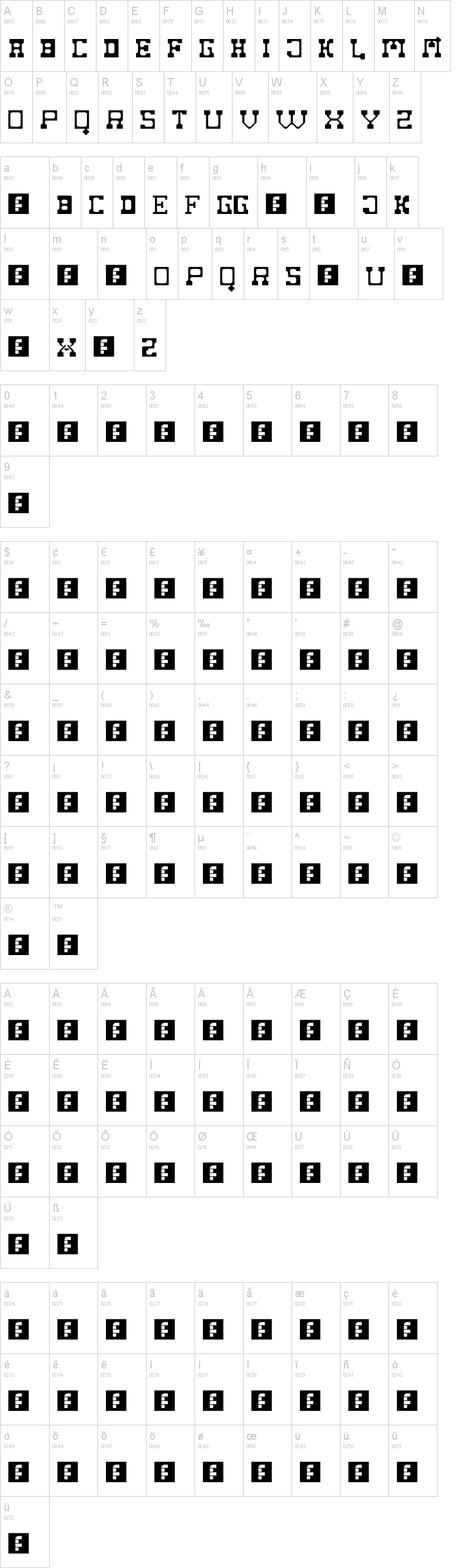
fat_cowboy_square.ttfNote of the authorHeadline Font. Wild West Cowboy Style with FX (checked, square)
1.Style
REGULAR (kerning 1 (normal))
2.Style
SQUARE (checked) (kerning 0)